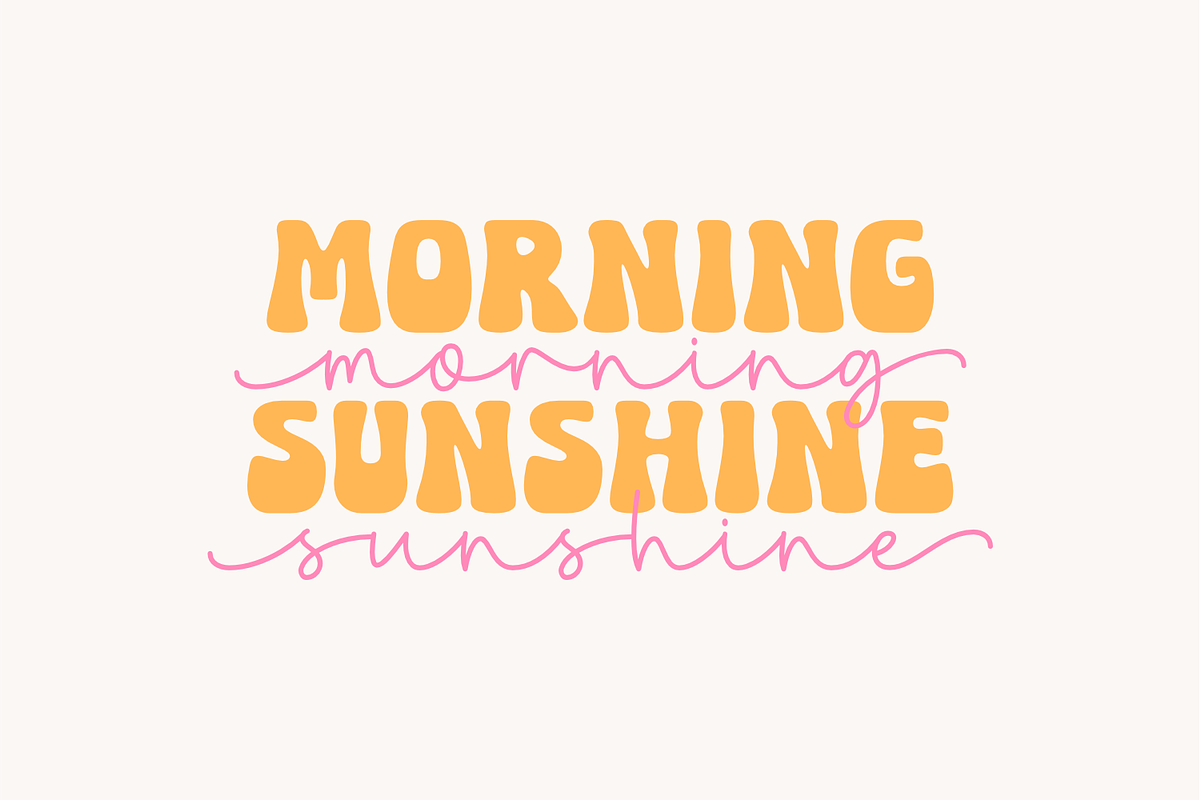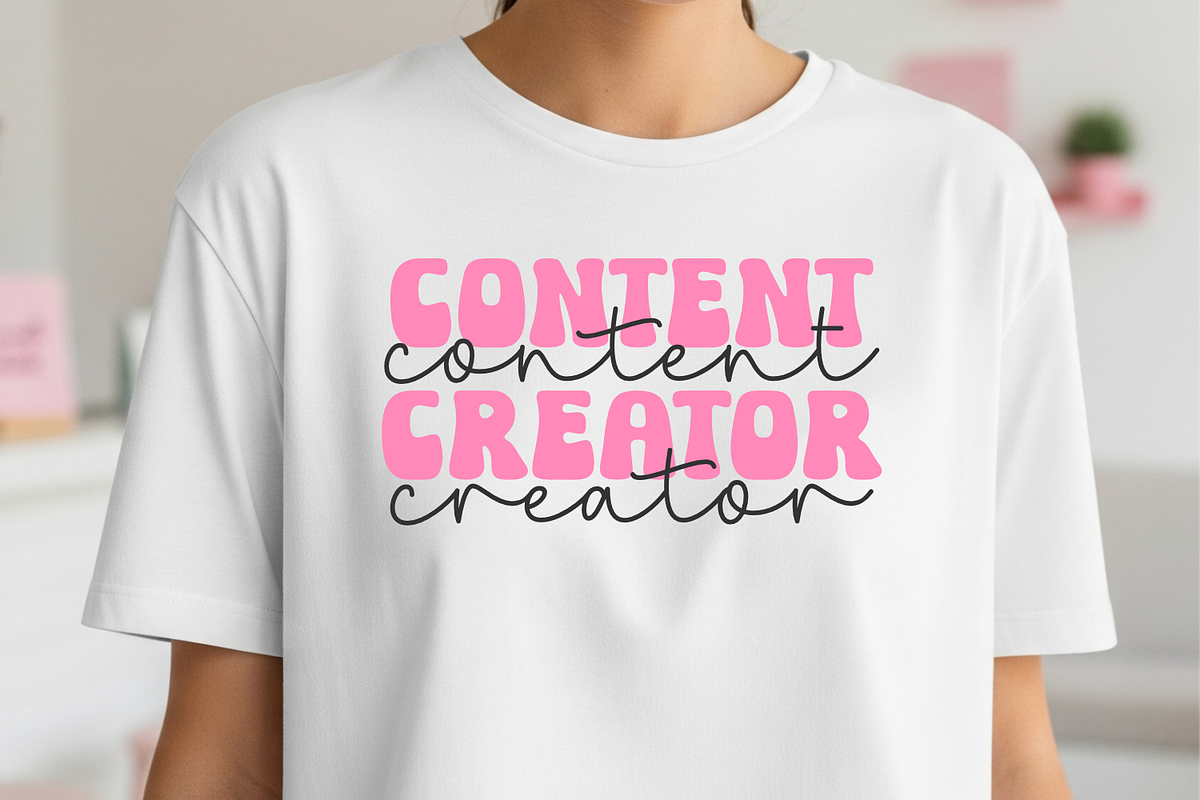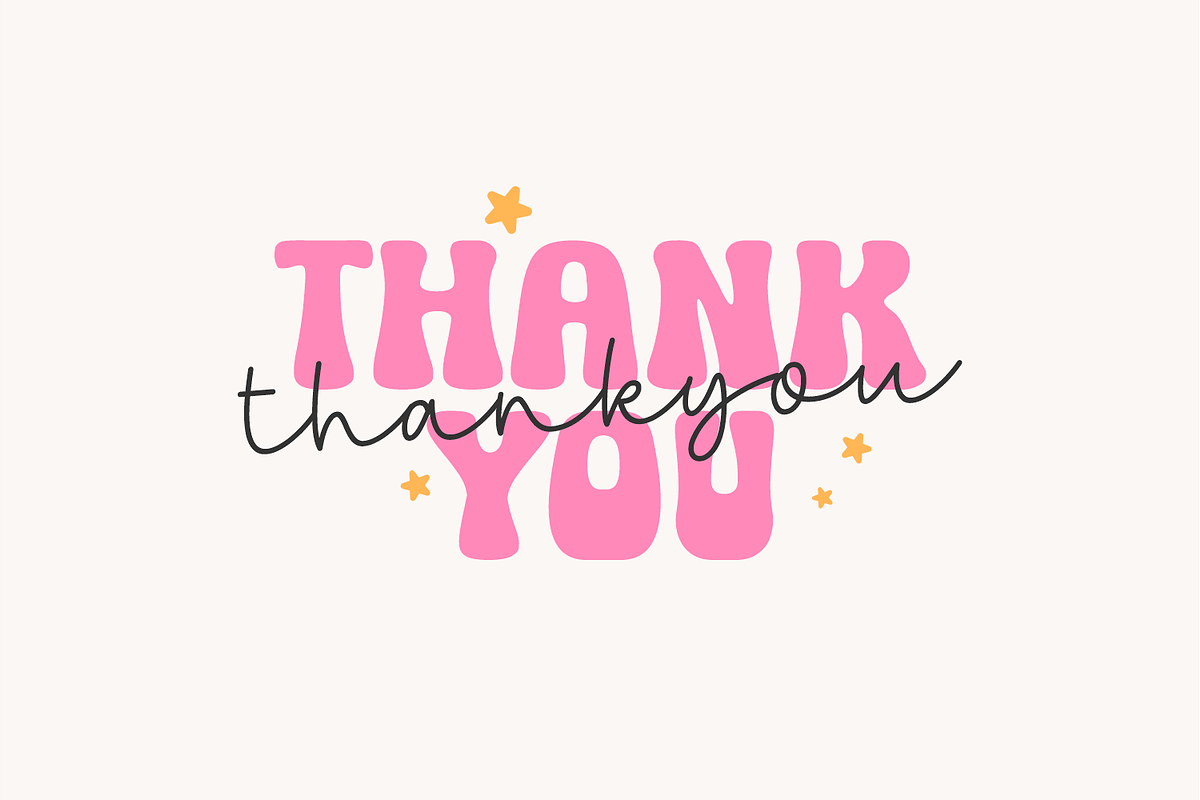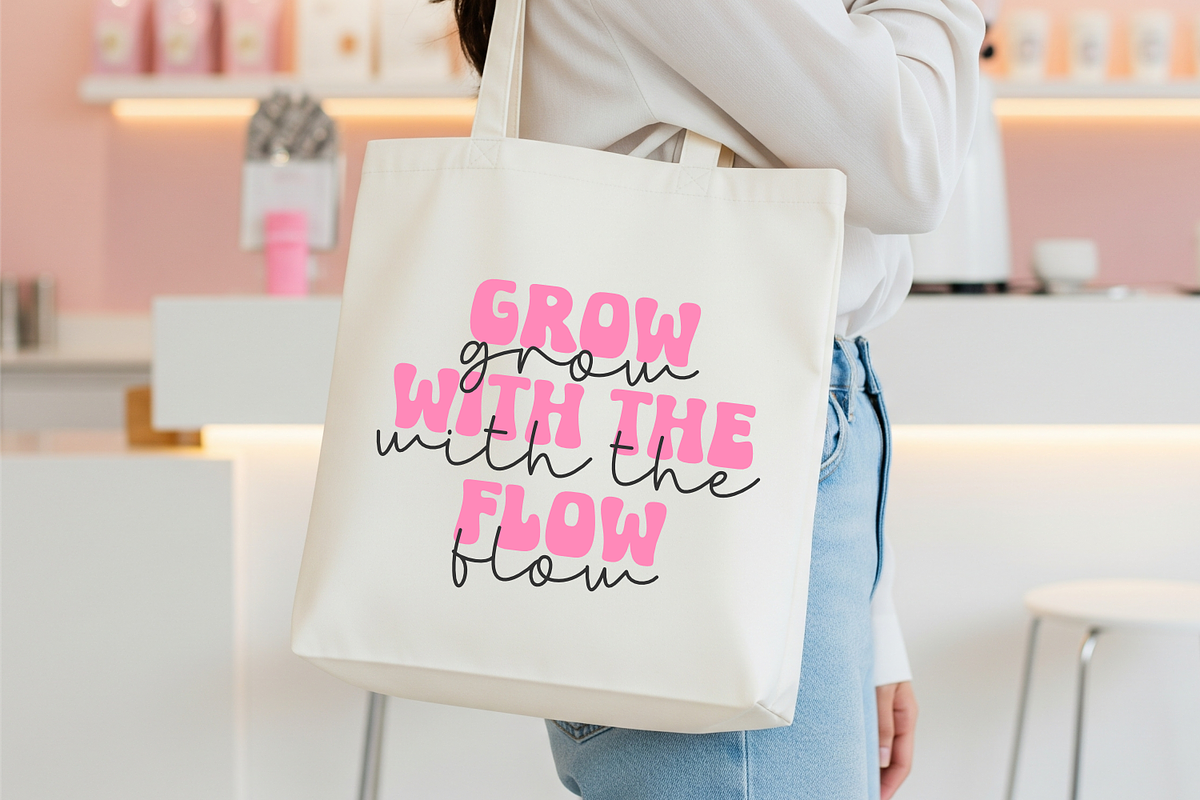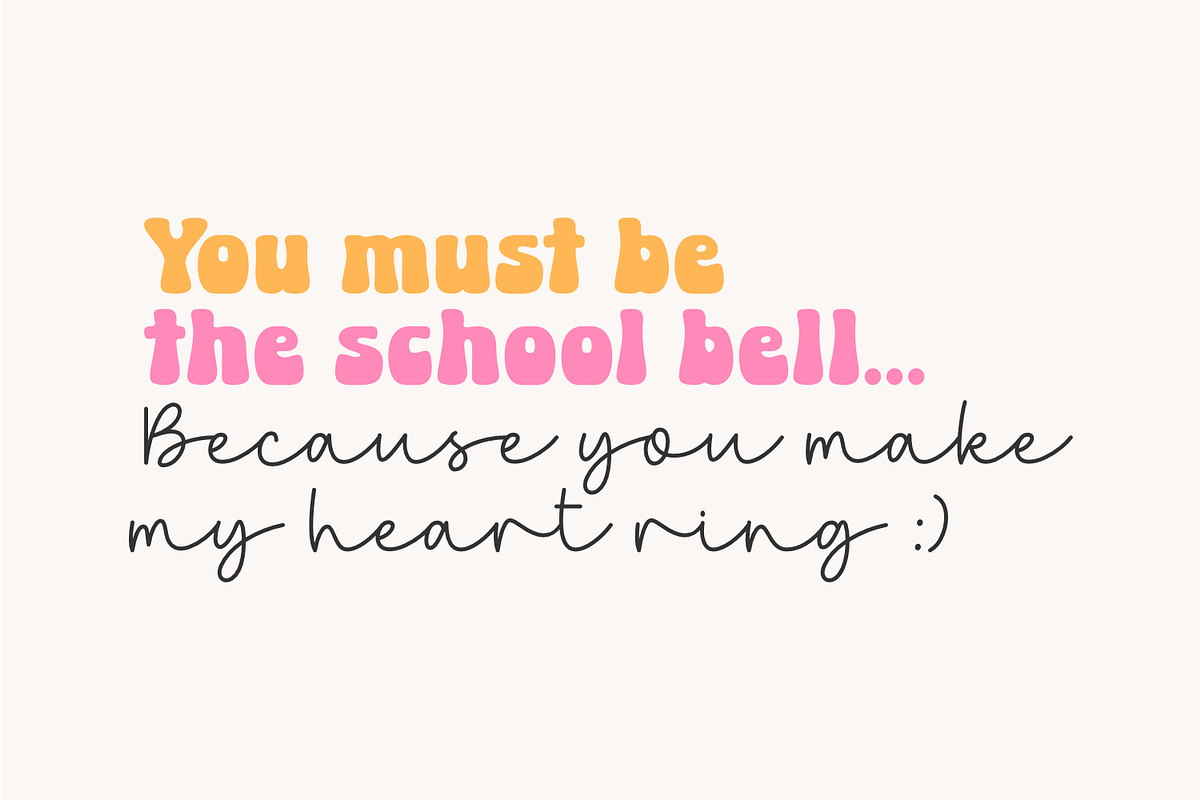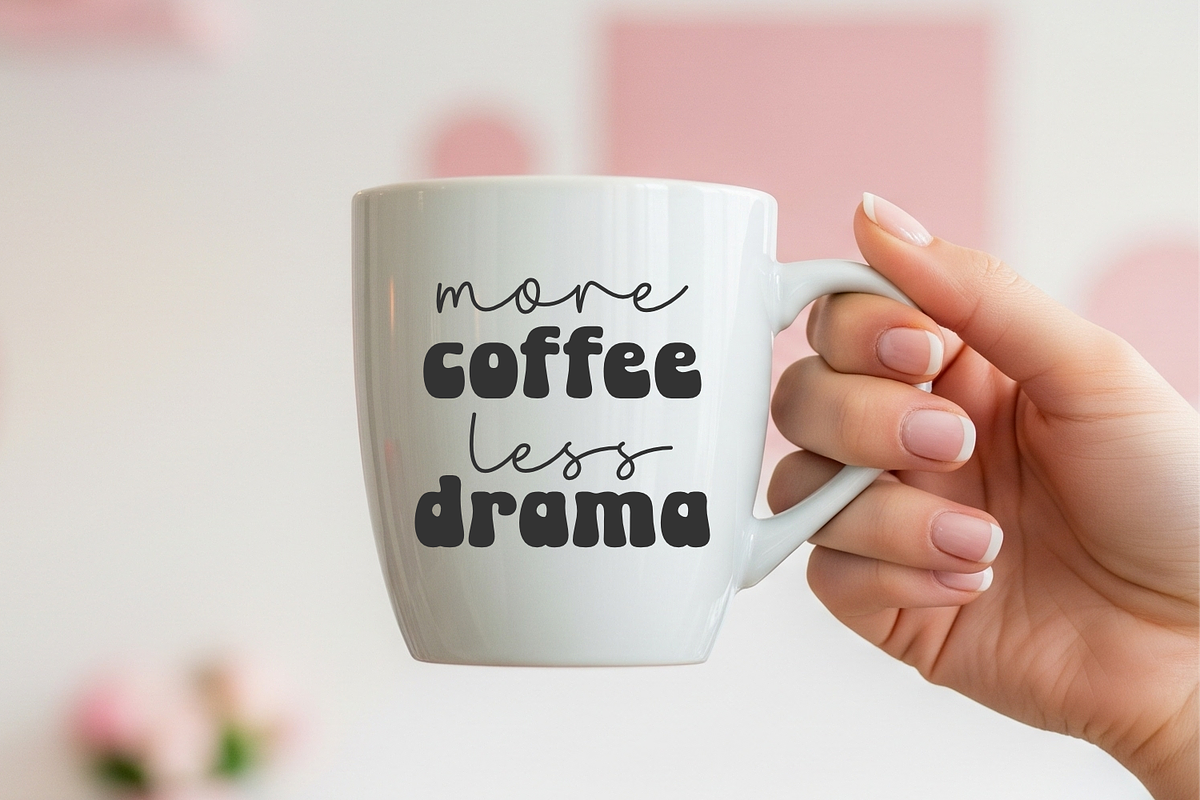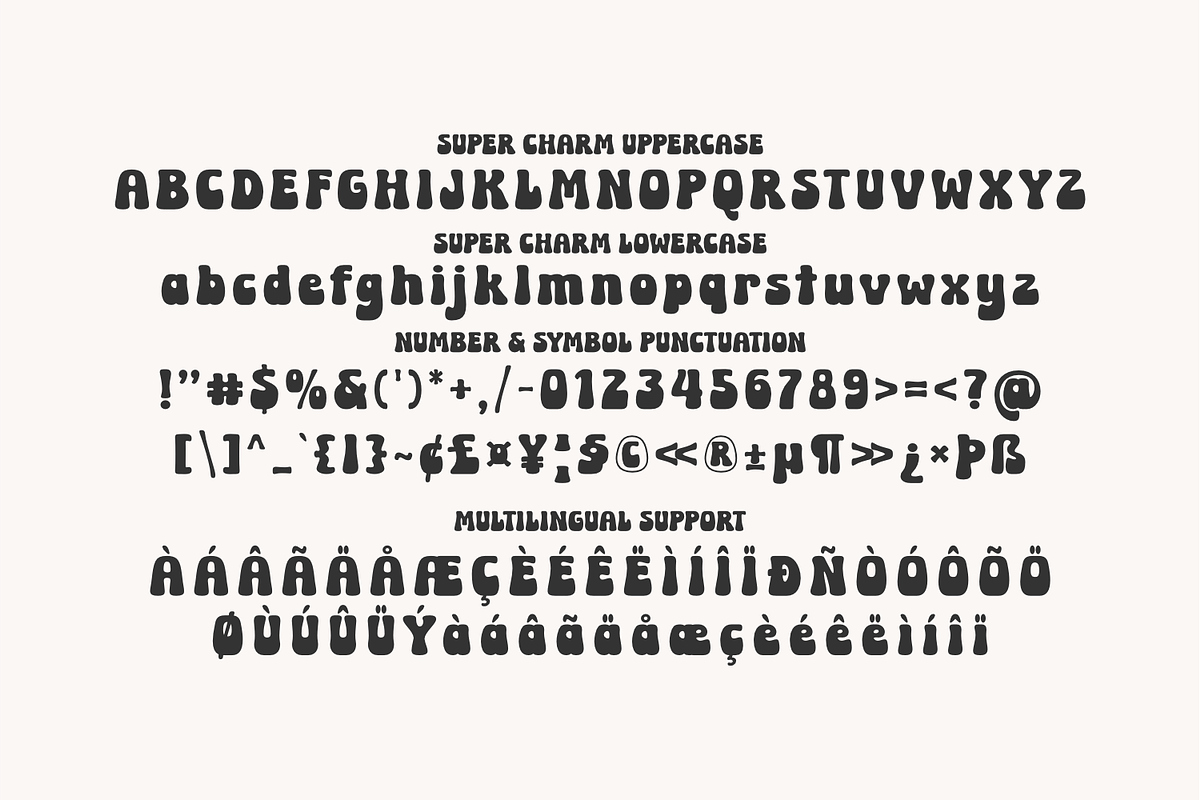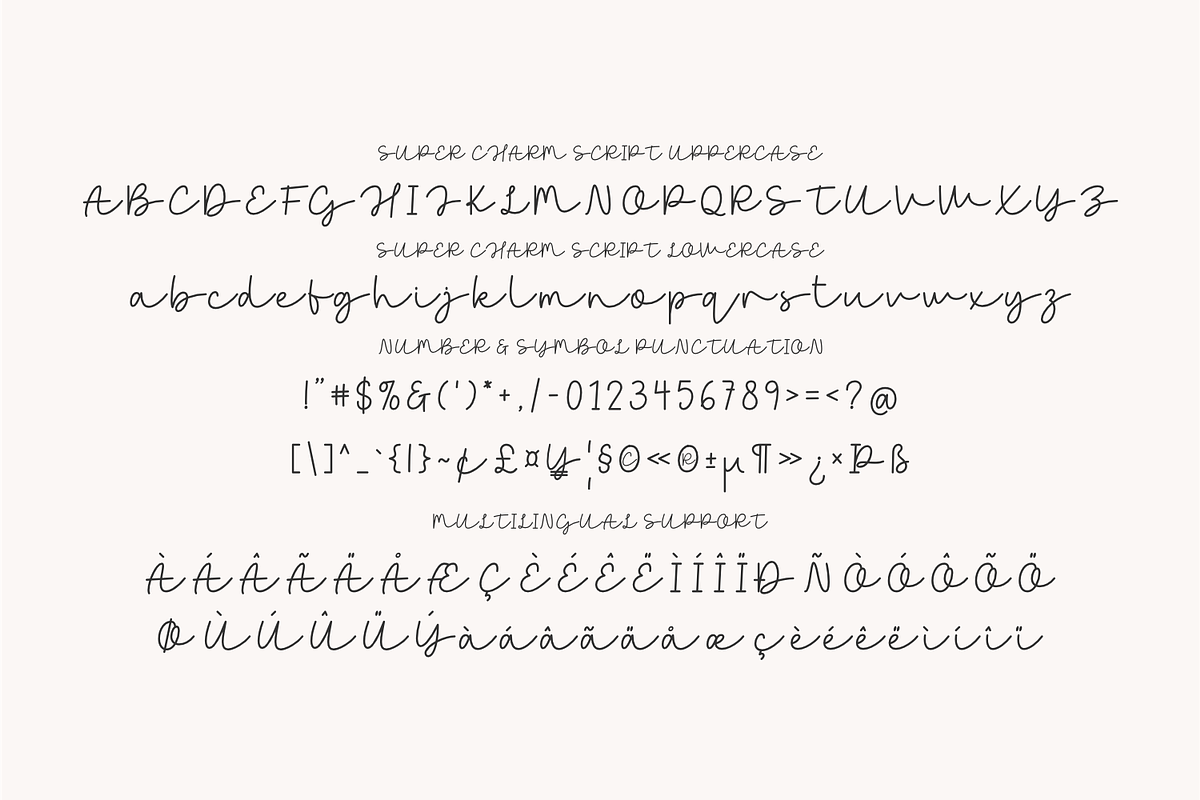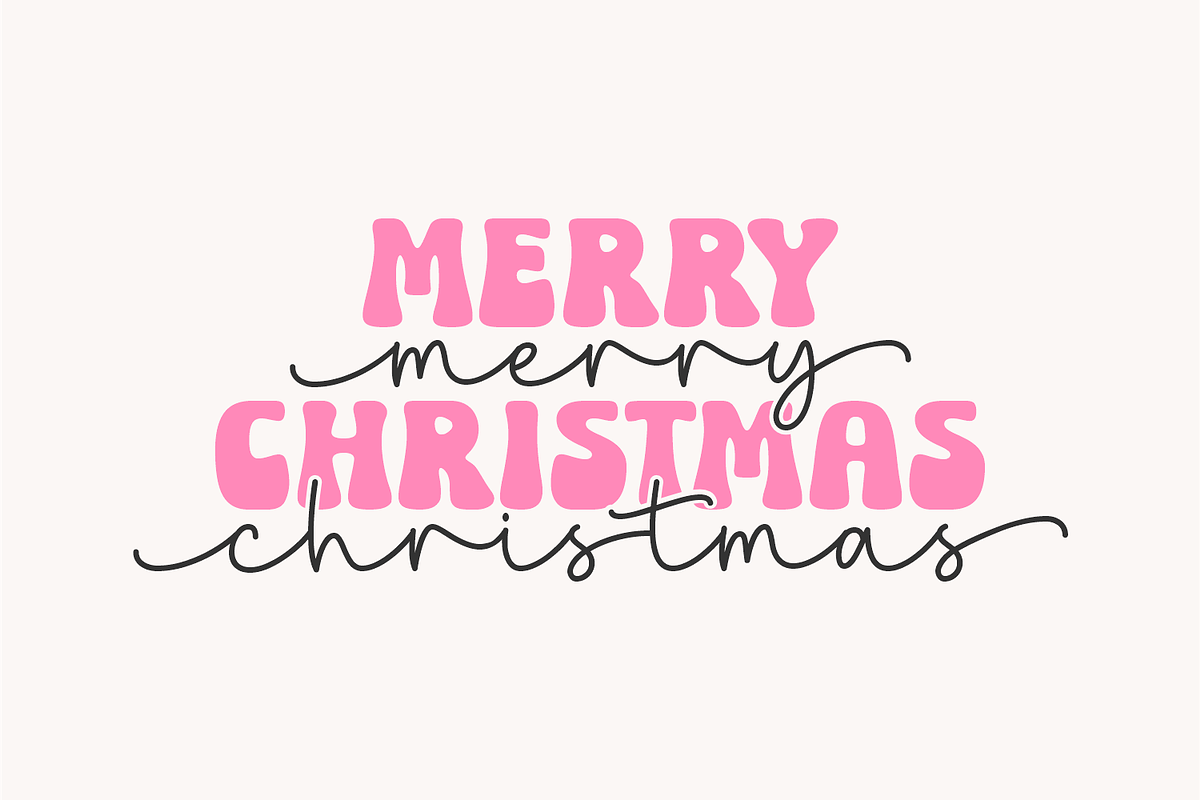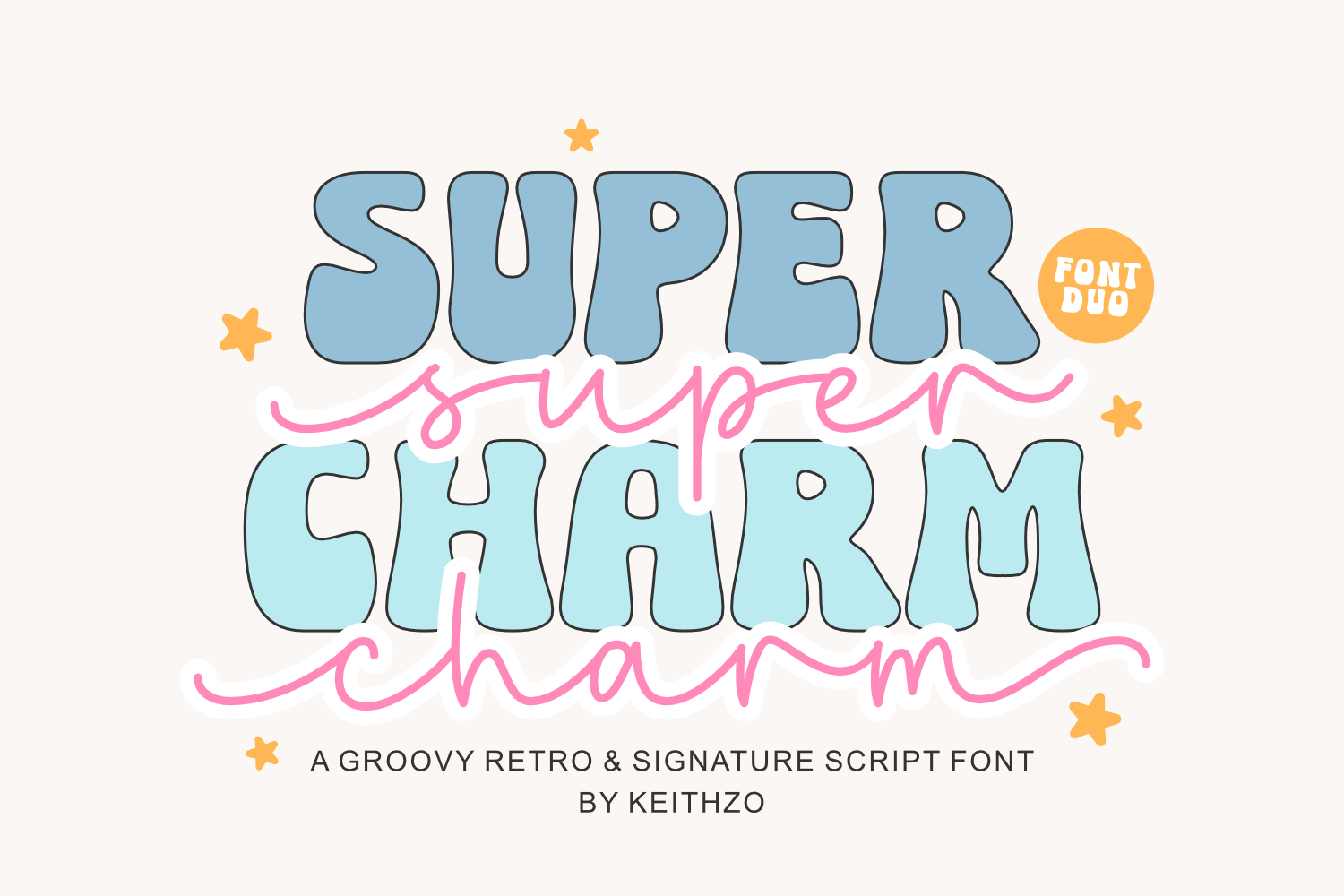
Super Charm - Font Duo
Super Charm is a Font Duo That Blends Vintage Charm and Modern Grace. Meet Super Charm, a versatile font duo that combines two contrasting yet complementary styles. This font set includes:
Super Charm is a thick retro font with rounded edges that gives off a groovy, cheerful vibe. It’s perfect for attention-grabbing headlines and 70s or 80s-themed designs.
Super Charm Script: An elegant, flowing monoline script that adds a personal and authentic touch. Great for branding, signatures, or any design element that needs a bit of softness. The Super Charm Script font is enhanced with built-in swashes at every connection, making it easy to create beautiful, flowing text
Use them together to create a dynamic contrast or separately for different styles. Super Charm is the ideal choice for branding projects, packaging design, invitations, merchandise, and anything that needs a sweet and authentic feel.